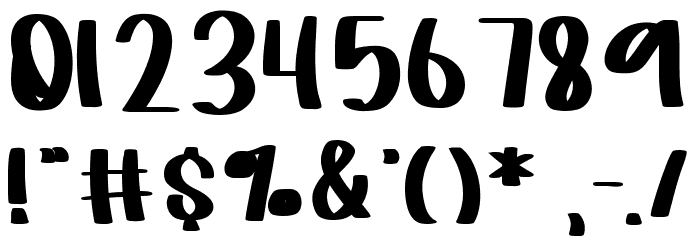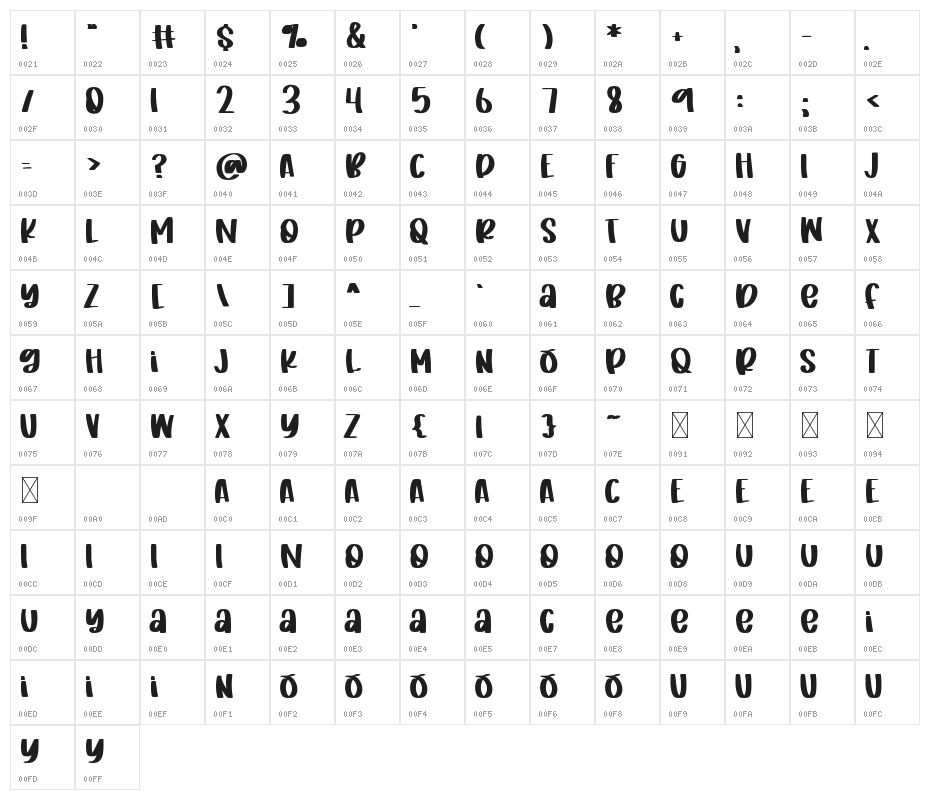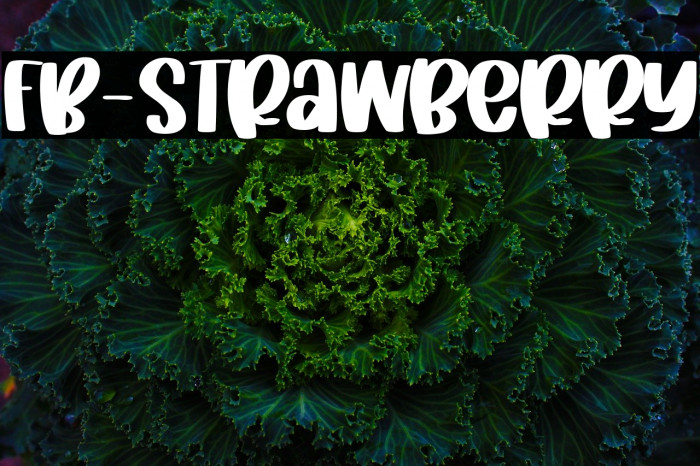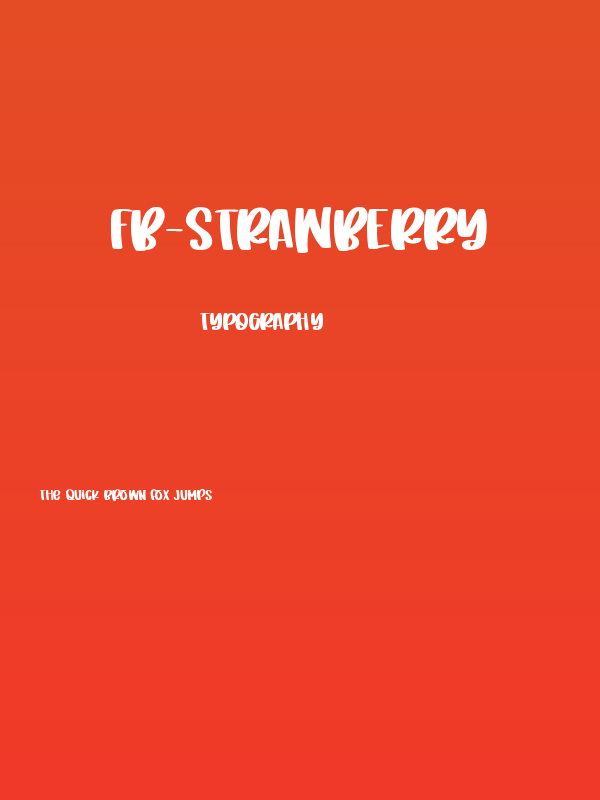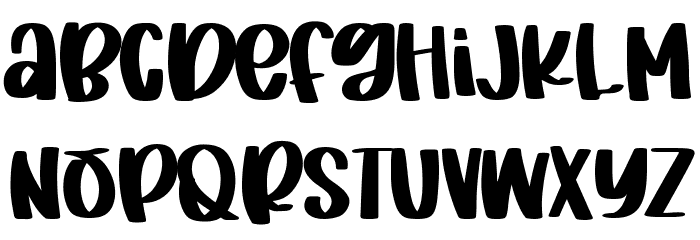
FB-Strawberry Font
FB-Strawberry Description
This font features a playful and bold handwritten style, characterized by its thick strokes and rounded edges. The letters are slightly slanted, giving a dynamic and lively appearance. The uppercase and lowercase letters maintain a consistent style, with a whimsical touch that adds personality. The numbers and special characters are equally bold, ensuring uniformity across all characters. This font's energetic and informal style makes it suitable for creative and fun projects.
| Proposed Projects | Ideal for children's books, playful branding, greeting cards, and social media graphics. |